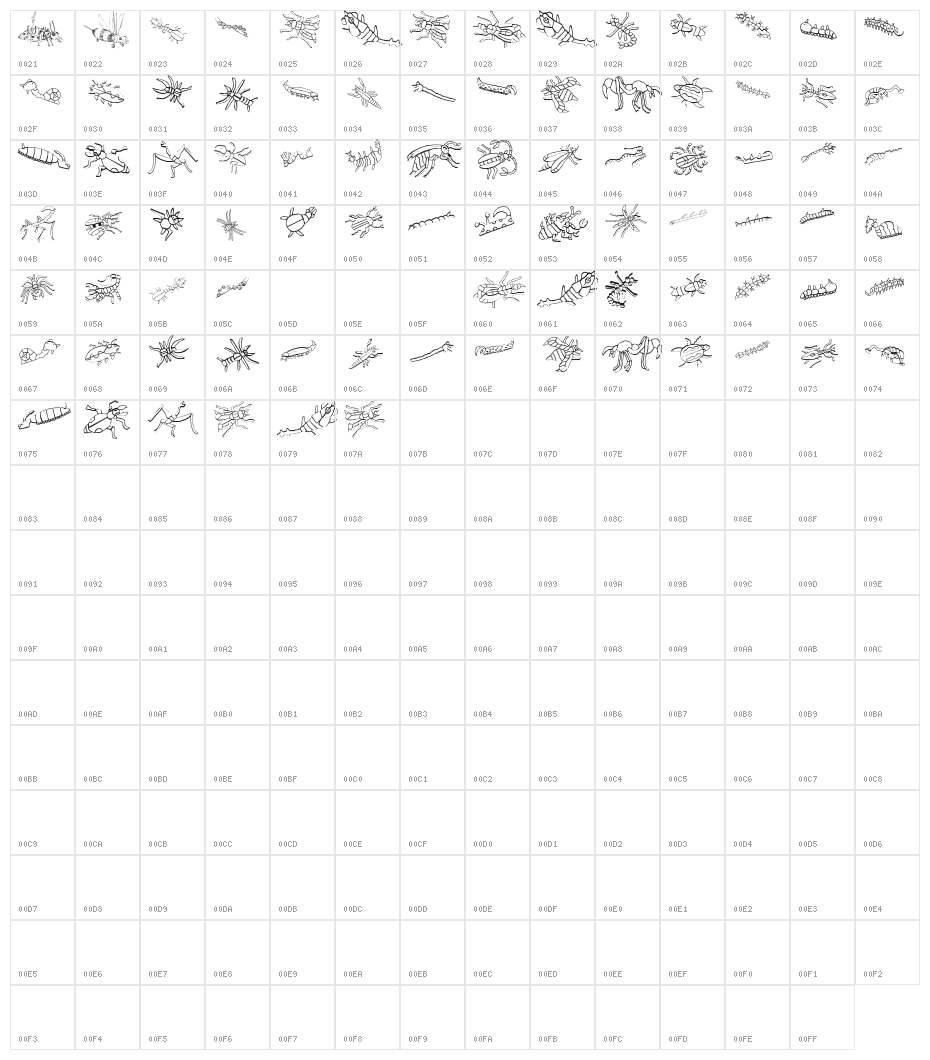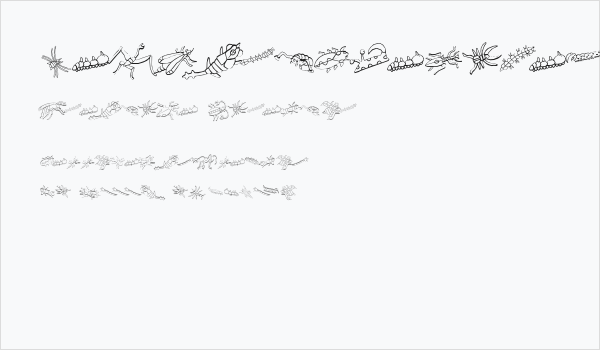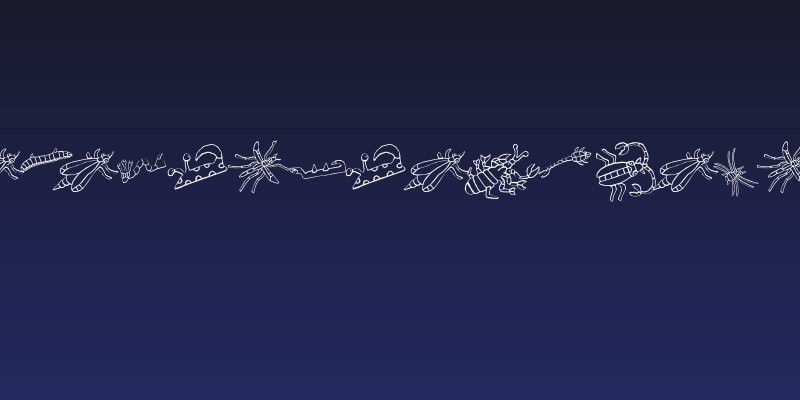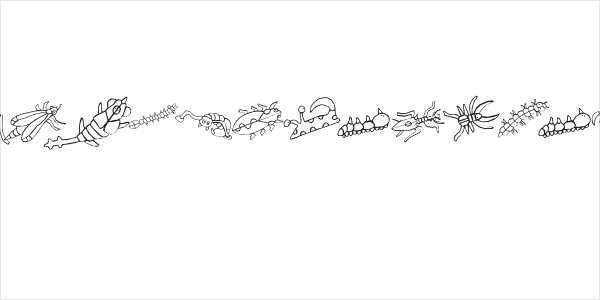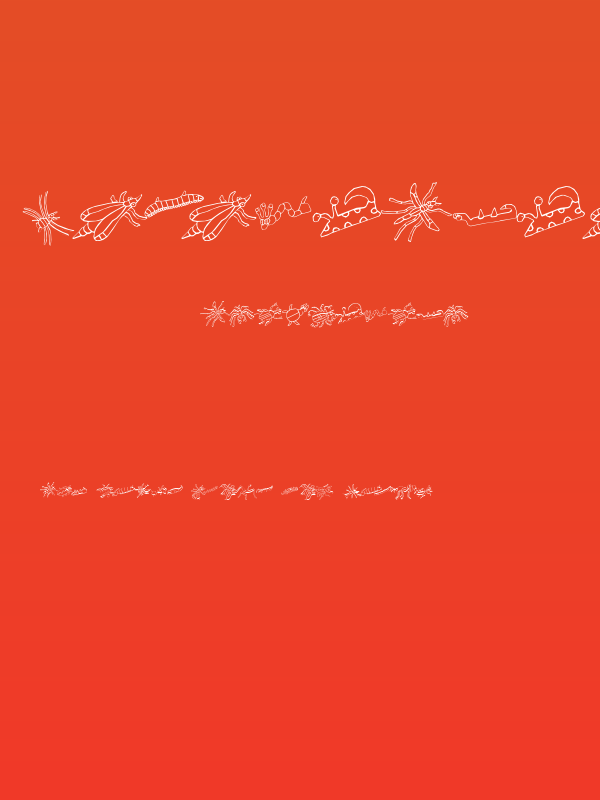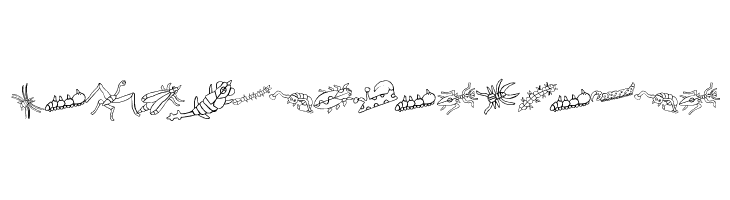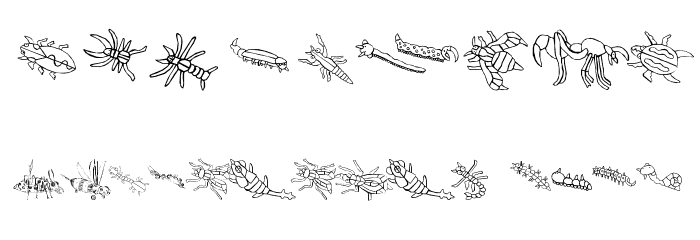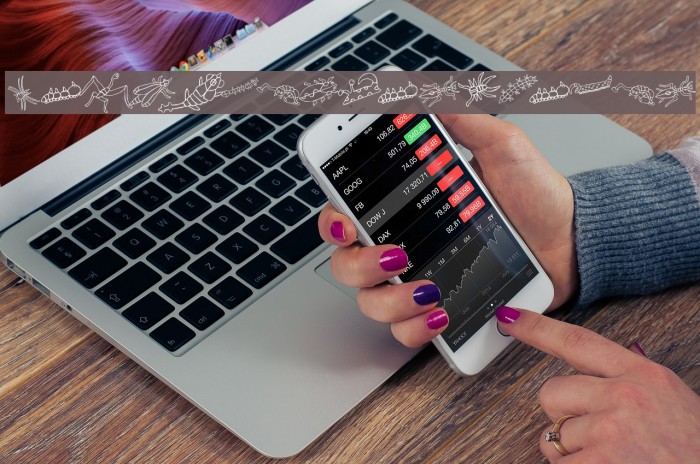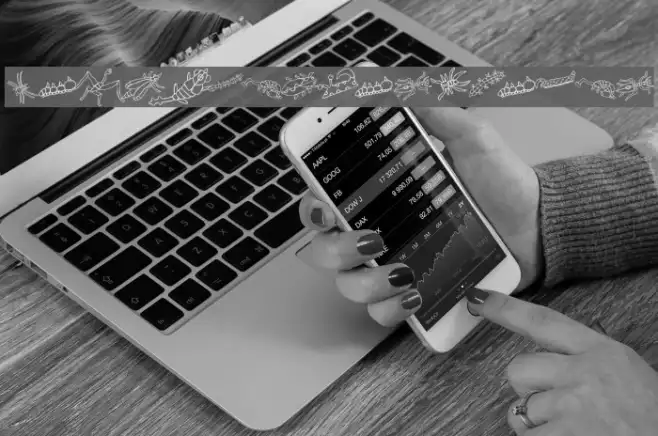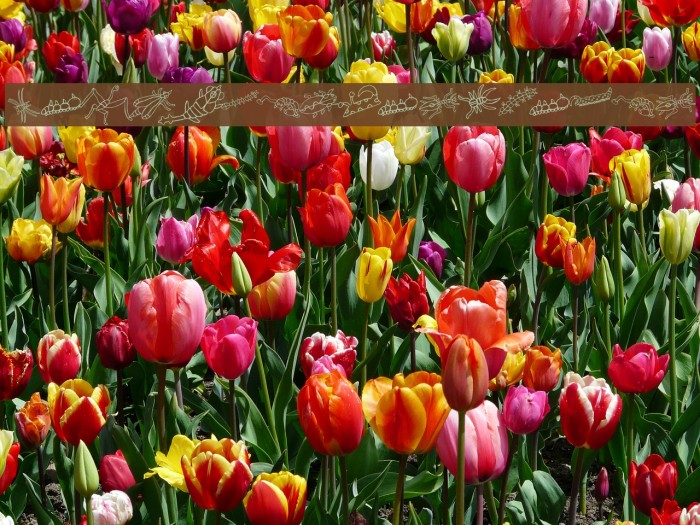
NewEarthResidents Font
NewEarthResidents Description
This is not a valid font. The image contains a series of abstract, insect-like illustrations that do not correspond to any recognizable alphabet or numerical system. Each character is represented by a unique, artistic depiction of a creature, making it unsuitable for traditional text representation.
| Use Case | Decorative elements, Illustrations |
| Proposed Projects | This set of illustrations could be used for creative projects such as children's books, educational materials about insects, or decorative elements in graphic design. |